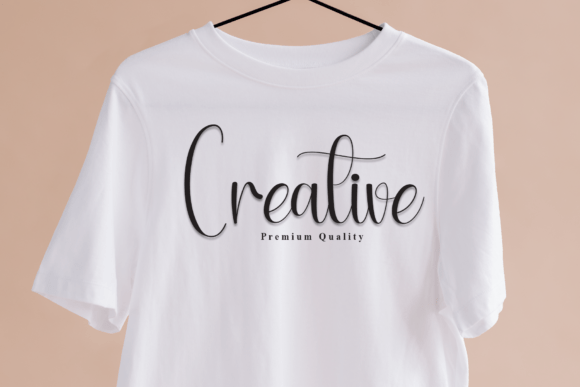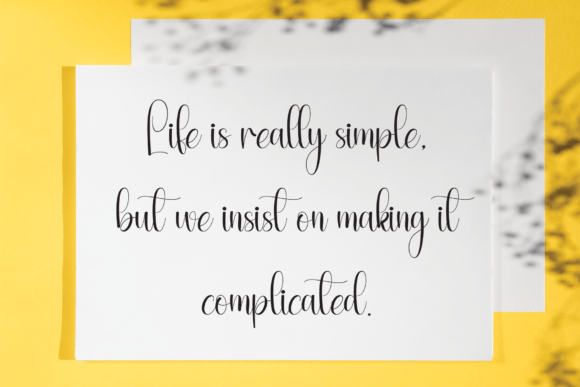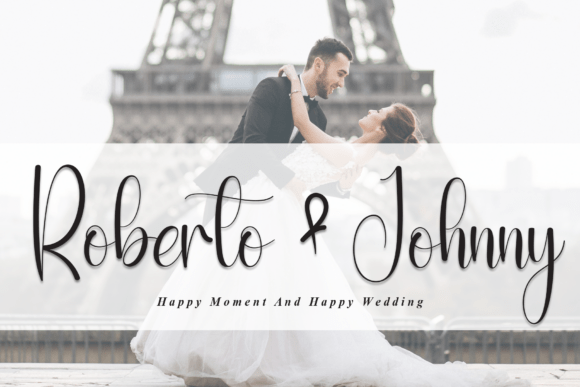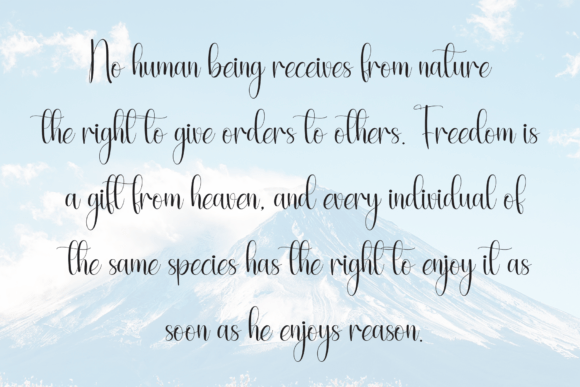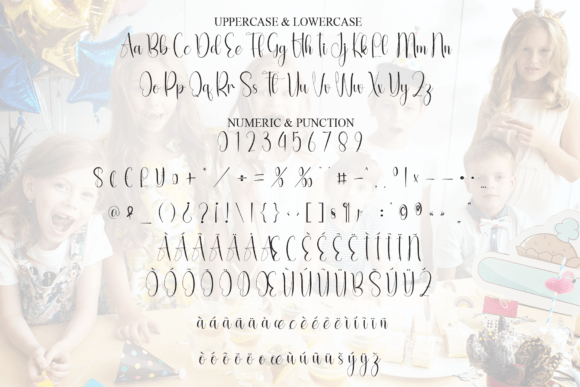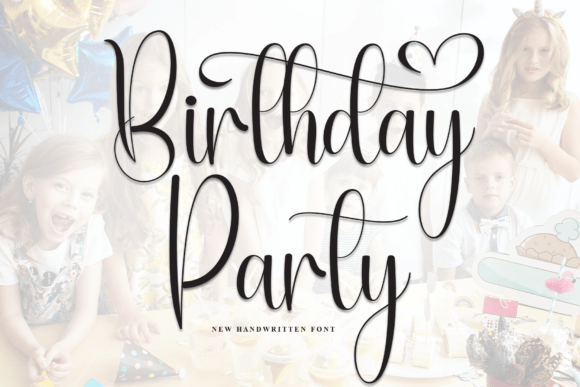
Introducing Birthday Party Font: Elevate Your Designs with Elegance and Charm
Are you looking for a font that adds a touch of sophistication and whimsy to your designs? Look no further than the Birthday Party font, a stylish handwritten script font that exudes elegance and charm. With its fluid, graceful strokes, this font is perfect for designers and crafters seeking to add a personal and refined touch to their branding, invitations, stationery, and more.
The Characteristics of Birthday Party Font
So, what makes the Birthday Party font stand out? Here are some of its key characteristics:
• Fluid and Graceful Strokes: The Birthday Party font features smooth, flowing strokes that give it a natural and effortless look. The fluidity of the strokes creates a sense of movement and energy, making it perfect for designs that require a touch of dynamism.
• Elegant and Refined: The font’s elegant and refined appearance makes it suitable for a wide range of applications, from luxury branding to wedding invitations and stationery.
• Timeless Look: The smooth curves and natural flow of the font create a timeless look that won’t go out of style anytime soon. Whether you’re designing for a modern or traditional audience, the Birthday Party font is sure to impress.
The Birthday Party font is an excellent choice for designers and crafters who want to add a personal touch to their work. Here are some ways you can use this font to elevate your designs:
• Branding: Use the Birthday Party font to create elegant and sophisticated brand identities that stand out from the competition.
• Invitations: Add a touch of whimsy and romance to your invitations, whether it’s for a wedding, birthday party, or baby shower.
• Stationery: Create beautiful stationery, such as letterheads, greeting cards, and thank-you cards, with the Birthday Party font.
• Digital Designs: Use the font in your digital designs, such as social media graphics, blog headers, and email newsletters.
Why Choose Birthday Party Font?
With so many fonts available, why choose the Birthday Party font? Here are some reasons why designers and crafters love this font:
• Unique and Versatile: The Birthday Party font is unique and versatile, making it suitable for a wide range of applications and design styles.
• Easy to Read: Despite its elegant and refined appearance, the font is easy to read, even in smaller sizes.
• High-Quality: The font is of high quality, with smooth curves and precise lines that ensure it looks great in any design.
Tips for Using Birthday Party Font
Here are some tips for using the Birthday Party font in your designs:
• Pair it with Other Fonts: Experiment with pairing the Birthday Party font with other fonts to create a unique and visually appealing design.
• Use it in Headlines and Titles: Use the font in headlines and titles to add a touch of elegance and sophistication to your designs.
• Experiment with Colors: Try out different colors and textures to see how they interact with the font and create a unique look.
In conclusion, the Birthday Party font is a stylish and elegant handwritten script font that adds a touch of sophistication and charm to any design. With its fluid, graceful strokes and timeless look, it’s perfect for designers and crafters seeking to create beautiful and refined designs. Whether you’re working on branding, invitations, stationery, or digital designs, the Birthday Party font is sure to impress.